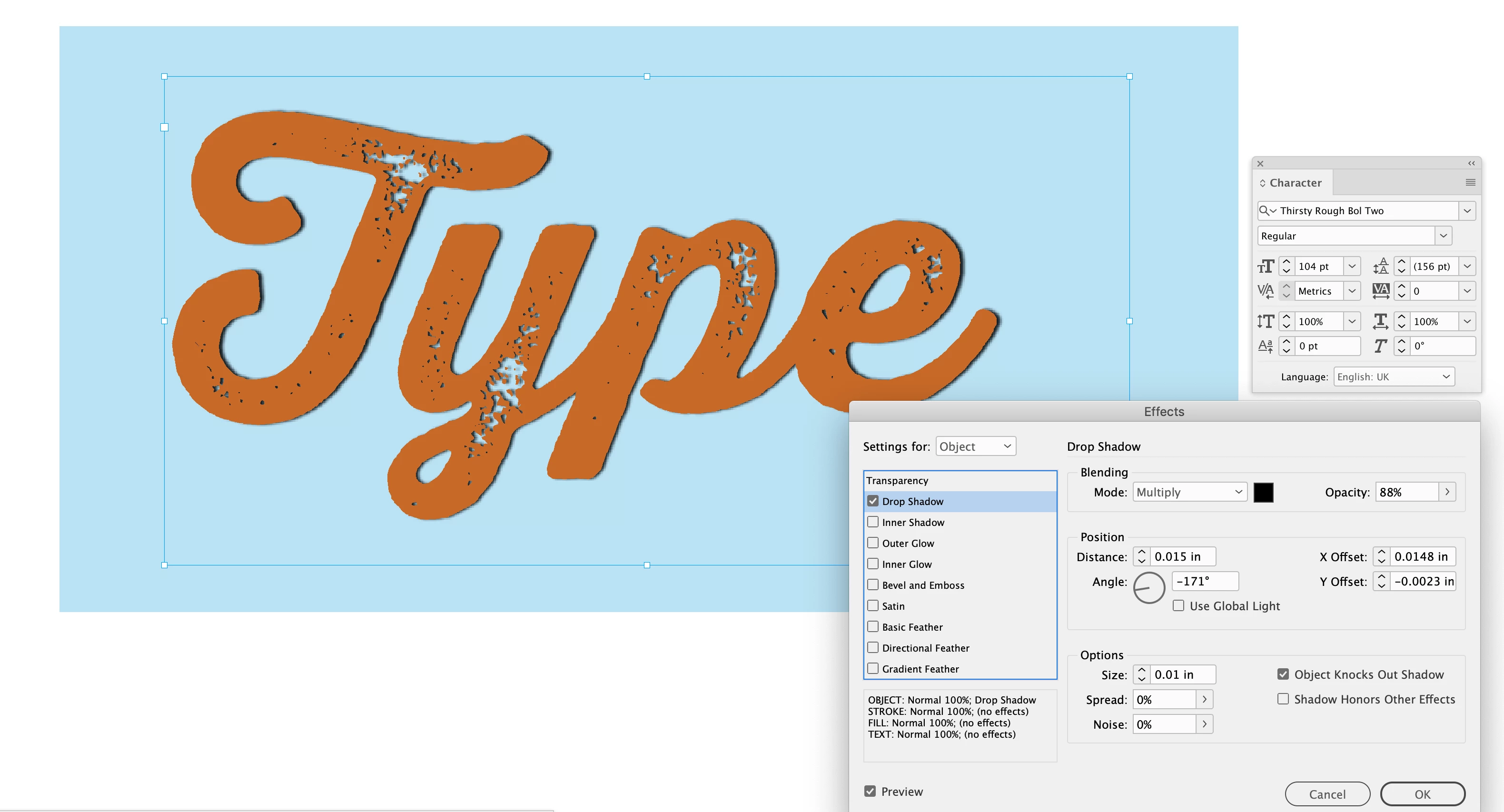
adding three colors to a distressed typeface?
Hi!  I was just wondering how you would go about making something like this (the orange rusty typeface) and with what Adobe program?
Thank you so much!!!  This is so helpful and smart.  Illustrator might make more sense to have vector output as you say but I'll experiment in both programs.  I did have a distressed typeface in mind (Veneer Three Regular or Nexa Rust), although they make decisions for you about outlines or shadows that you can't always edit).  (And sorry it took me a while to reply -- I just saw the notification, not sure why it didn't send.)
I think you can do this as live text entirely in InDesign. See https://creativepro.com/creating-see-through-text/
Hi @Katherine25238449muqx , Your screen capture looks like a simple drop shadow. Here I’m using Adobe Fonts’ Thirsty Rough Bol Two:
Thank you!  Ah yes (Thirsty Rough Bol Two is great too!), but you can only see the blue in the type.  I'd like to see another color like white specs as well, see.  🙂
I would use Photoshop, with some adjustment layers, for specific-sized use, but Illustrator would produce scalable vector output that might be more suitable — more usable as fonts are, rather than images.
Go with Illo. Place your text at a fairly large size, convert to outlines, modify as you like (using layers helps), then save and import to ID as the AI file directly. You'll have to do each block of text as a separate file, but you can export from individual artboards to keep all the work in one file.
ETA: I assumed you were starting with a distressed typeface that would have elements to work with. If you want to to start with a regular typeface, you'll have to apply a texture to at least the area inside an outline or embossed edge. That might be easier in Photoshop; you can probably find a premade texture that can be used or 'massaged' into the look you want.
I would try Firefly.com with the new text generating option.
I don't intend to deprecate new tools or methods, or dismiss your answer, but... I am concerned that more and more "answers" are "go have an AI system do it for you."
Maybe there's a line between learning a technique and just asking someone to do it for you? Fish vs. Fishing, and all that?